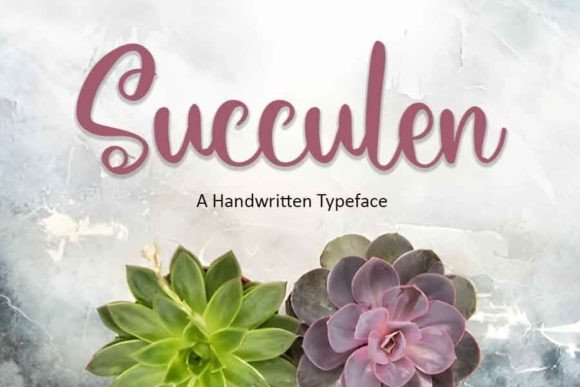
Journey into the Realm of Succulen Font, a Treasure Trove of Beauty and Sophistication
In the realm of typography, Succulen Font stands as a testament to the power of elegance and grace. This captivating script font, meticulously brought to life by the talented Emily Store, is a symphony of delicate strokes and flowing lines, designed to elevate your creative projects to new heights of sophistication.
Succulen Font: A Masterpiece of Handcrafted Finesse
Succulen Font is not merely a font; it's an artistic expression, a testament to the beauty that can be found in the written word. With its intricate details and enchanting curves, this font exudes a timeless charm that will make your designs shine. Whether you're creating a cover book, designing an invitation, or simply adding a touch of elegance to your social media posts, Succulen Font is your companion in creativity.
Discover the Allure of Succulen Font:
- Embrace the Timeless Beauty: Succulen Font's classic script style exudes a timeless elegance that will never go out of fashion. Your designs will radiate a sense of sophistication and refinement, leaving a lasting impression on your audience.
- Express Your Individuality: With its versatile nature, Succulen Font effortlessly adapts to your unique style. Whether you prefer a minimalist aesthetic or a more elaborate design, this font will effortlessly complement your vision, allowing your creativity to flourish.
- Experience the Joy of Effortless Creation: Succulen Font is a dream to work with, allowing you to effortlessly bring your creative visions to life. Its smooth flow and natural letterforms make the design process a joy, enabling you to create stunning designs with minimal effort.
- Ignite Your Creative Spark: Succulen Font is more than just a tool; it's an inspiration. As you work with this font, you'll find yourself drawn into a world of creativity, where your imagination can run wild. Let Succulen Font be the catalyst for your next masterpiece.
A Symphony of Beauty Awaits You:
Succulen Font is a symphony of beauty, a font that will transform your creative projects into breathtaking works of art. Its delicate strokes and graceful curves will captivate your audience, leaving them in awe of your design prowess. Embrace the allure of Succulen Font today and embark on a journey of creativity that will leave you inspired and fulfilled.